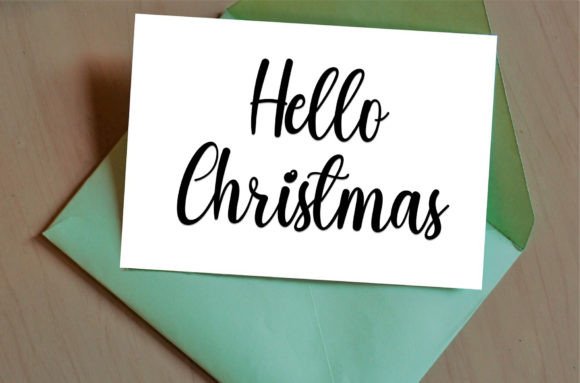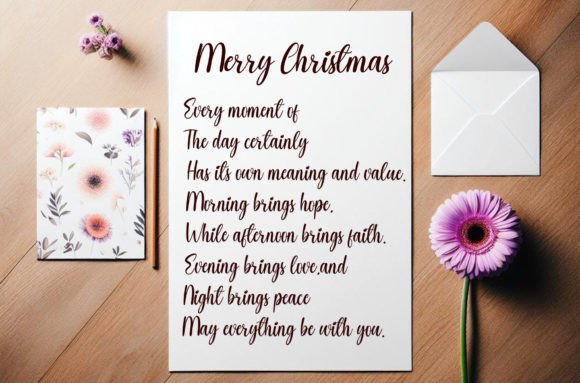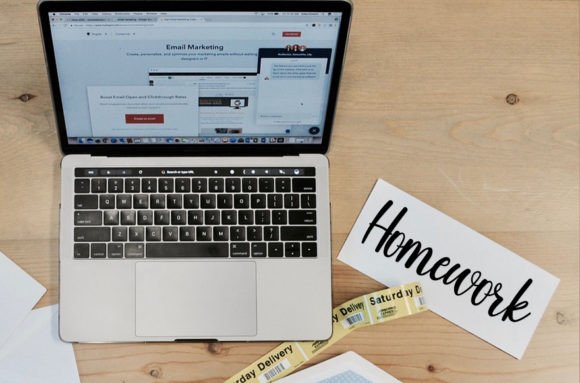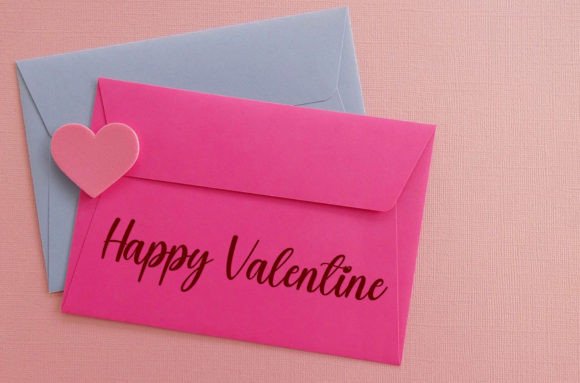
Introducing Christmas Font: A Timeless Classic for Your Holiday Projects
Are you looking for a font that captures the essence of the holiday season? Look no further than Christmas Font, a stylish handwritten font with a contemporary vibe and perfect shapes, inspired by timeless classic calligraphy. This beautiful font is designed to enhance the beauty of your project, whether you’re a designer, crafter, or DIY enthusiast.
The Inspiration Behind Christmas Font
Christmas Font is inspired by the classic calligraphy of the past, with a modern twist. The font’s creator aimed to capture the elegance and sophistication of traditional calligraphy, while infusing it with a fresh and contemporary feel. The result is a font that is both timeless and modern, perfect for a wide range of projects.
Key Features of Christmas Font
So, what makes Christmas Font so special? Here are some of its key features:
- Handwritten style: Christmas Font has a beautiful, handwritten style that gives it a personal and unique touch.
- Contemporary vibe: Despite being inspired by classic calligraphy, Christmas Font has a modern and fresh feel that makes it perfect for contemporary projects.
- Perfect shapes: The font features perfect shapes and lines, making it easy to read and visually appealing.
- Balanced and varied: Christmas Font is designed to be balanced and varied, with a range of letterforms and glyphs to keep your text interesting.
- Slightly italic style: The font’s slightly italic style gives it a sense of movement and elegance.
Uses for Christmas Font
Christmas Font is a versatile font that can be used for a wide range of projects, including:
- Holiday cards and invitations: Add a touch of elegance and sophistication to your holiday cards and invitations with Christmas Font.
- Christmas decorations: Use Christmas Font to create beautiful Christmas decorations, such as garlands, banners, and signs.
- Branding and packaging: Christmas Font is perfect for branding and packaging projects, especially for businesses that want to add a touch of holiday cheer to their products.
- Digital projects: Use Christmas Font in your digital projects, such as social media graphics, blog posts, and email newsletters.
Why Choose Christmas Font?
So, why should you choose Christmas Font for your project? Here are just a few reasons:
- Unique and eye-catching: Christmas Font is a unique and eye-catching font that will set your project apart from the rest.
- Easy to read: Despite its elegant and cursive style, Christmas Font is easy to read and understand.
- Versatile: Christmas Font can be used for a wide range of projects, from holiday cards to branding and packaging.
- High-quality: Christmas Font is a high-quality font that is designed to deliver exceptional results.
Tips for Using Christmas Font
Here are a few tips for using Christmas Font in your project:
- Use it sparingly: While Christmas Font is beautiful, it can be overwhelming if used too much. Use it sparingly to add a touch of elegance to your project.
- Pair it with other fonts: Christmas Font pairs well with other fonts, especially sans-serif fonts. Experiment with different pairings to find the one that works best for your project.
- Adjust the size and color: Adjust the size and color of Christmas Font to suit your project’s needs.
Christmas Font is a beautiful and versatile font that is perfect for a wide range of projects. Its unique and eye-catching style, combined with its ease of use and high-quality design, make it an excellent choice for designers, crafters, and DIY enthusiasts. Whether you’re looking to add a touch of elegance to your holiday cards or create a stunning Christmas decoration, Christmas Font is the perfect choice.